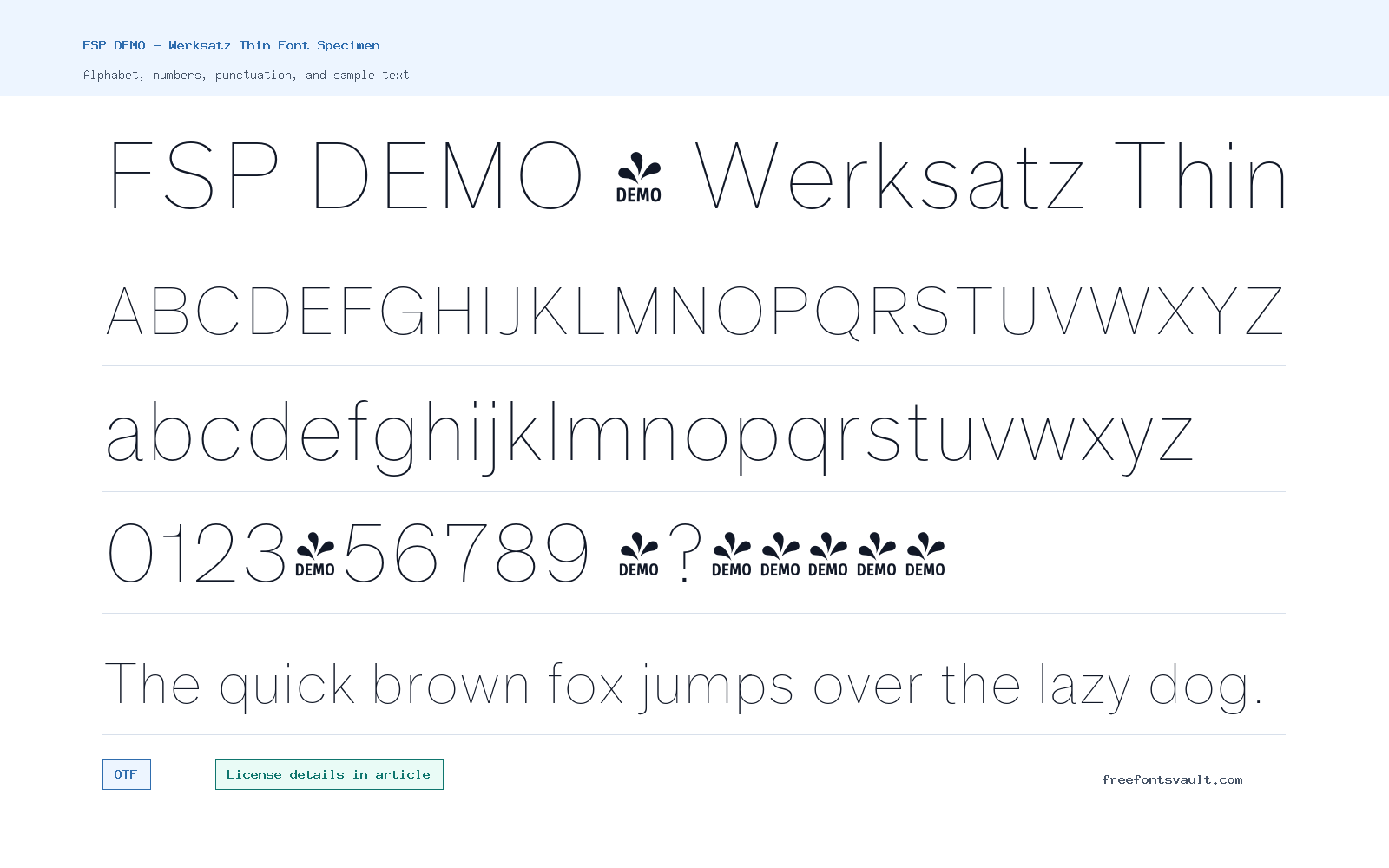
FSP DEMO - Werksatz Thin
- Designer Moritz Kleinsorge
- Foundry Identity Letters
FSP DEMO – Werksatz Thin font.
Werksatz Thin is a light-weight demo font with an OTF file format and a 100-weight style. It is best tested at larger sizes where its thin strokes can stay clear.
About Werksatz Thin
FSP DEMO – Werksatz Thin is a thin style from the Werksatz family name shown for this download. The file is an OpenType font, with normal style settings and a very light 100 weight. That makes it more suitable for display text than dense body copy.
Thin weights need careful contrast. Test the font on both light and dark backgrounds, and check whether the strokes remain visible after export, compression, or printing. If the design will appear on mobile screens, keep the text larger than you would with a regular or medium weight. For small supporting text, choose a sturdier companion style.
- Thin 100-weight style for light display typography
- Normal style variant
- Needs strong contrast and generous size because of the thin 100-weight strokes
- Large headings and short title lines
- Editorial layouts with generous spacing
- Minimal branding drafts or mockups
- Poster, portfolio, and presentation previews
- Light editorial headings paired with a sturdier companion font
Werksatz Thin is credited to Moritz Kleinsorge, with Identity Letters listed as the foundry.
What weight is Werksatz Thin?
The available variant is a thin 100-weight style.
What is this font best used for?
It is best for short display text such as headings, titles, captions, and design previews. Thin strokes may lose clarity in small sizes or long paragraphs.
Who designed Werksatz Thin?
The font is credited to Moritz Kleinsorge, and the foundry is listed as Identity Letters.
How can I keep Werksatz Thin readable?
Use larger sizes, strong contrast, and enough letter spacing. Avoid low-contrast colors and busy backgrounds, especially for mobile or small printed uses.